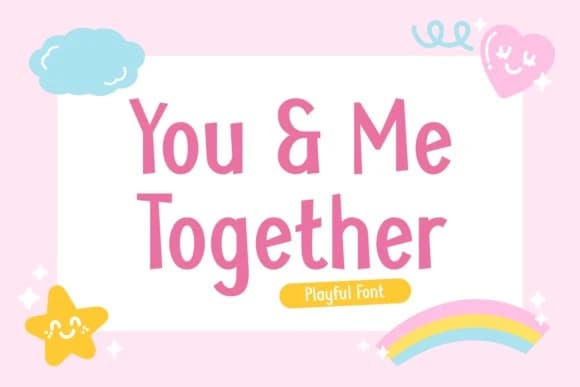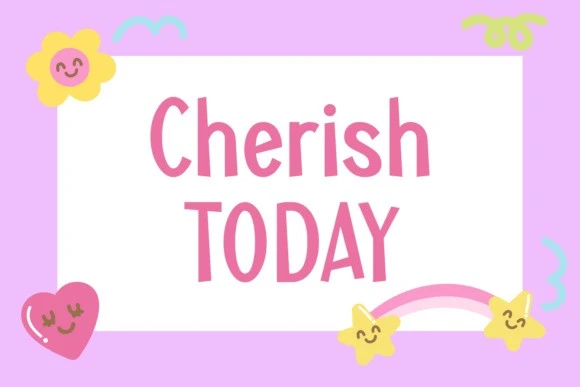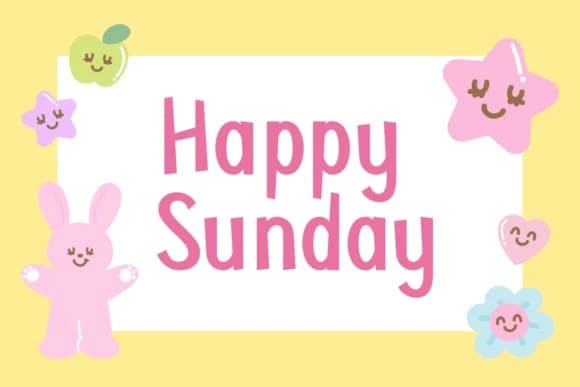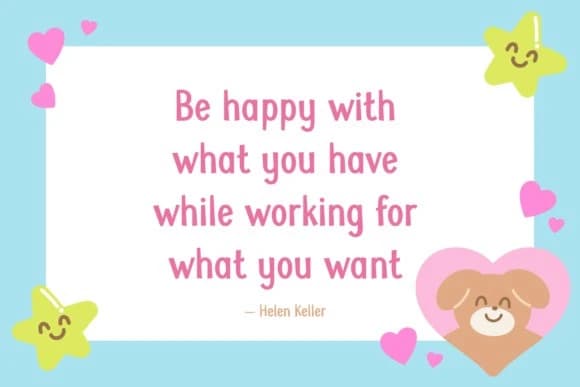
You And Me Together Font, a magnificent font that effortlessly straddles the world of display and cute, embodying a mix of femininity and love appeal. Its fashion-forward design makes it great for wallpapers, hand-drawn sketches, and noteworthy headlines alike.